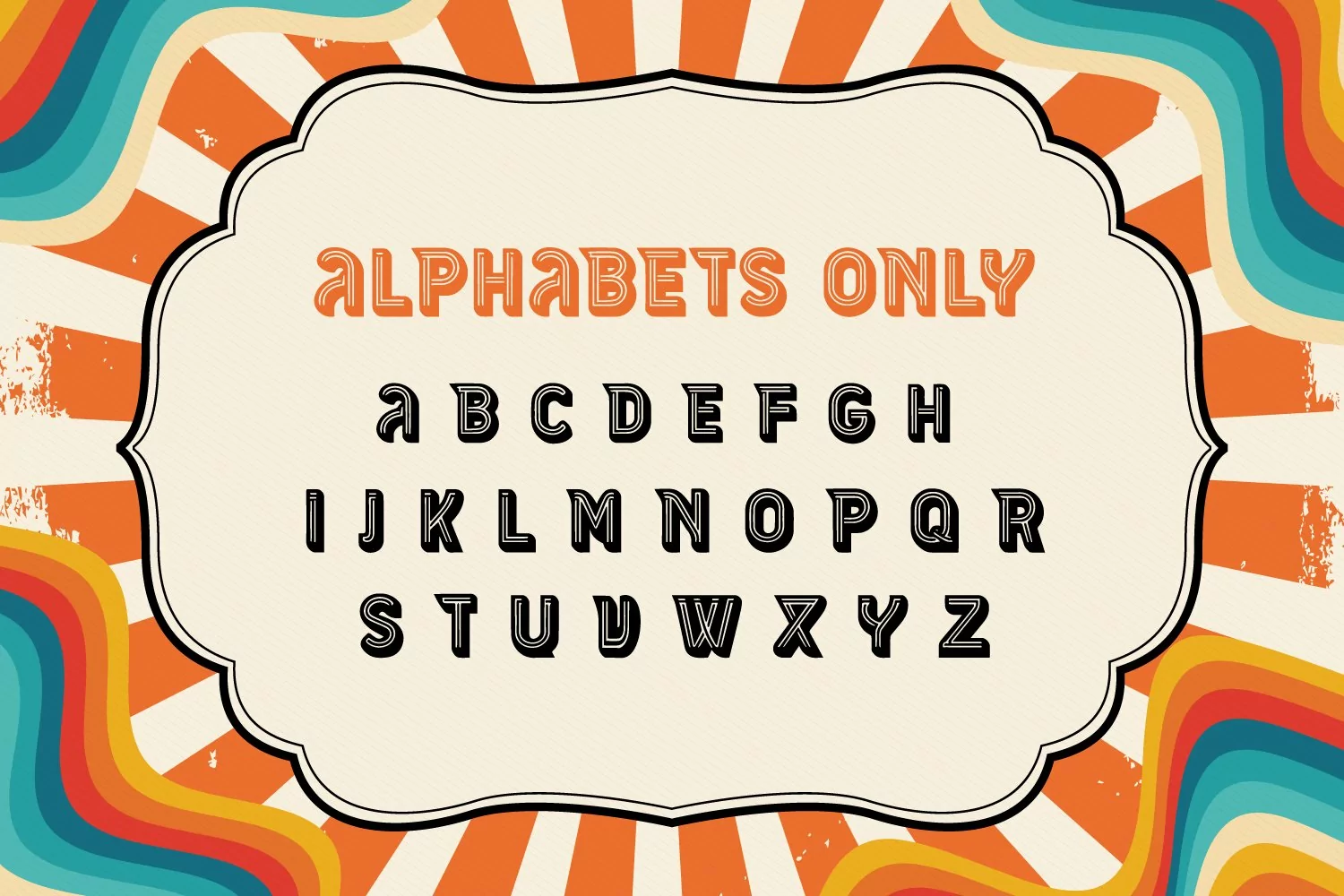
A cute Yippie - A Fun Groovy Retro Font for you! You can create lots of things using this font including logos, use in Cricut machines etc for your parties like birthdays, fun projects, and making monograms. This font is ready to help you in every situation.
This Font has Letters A-Z